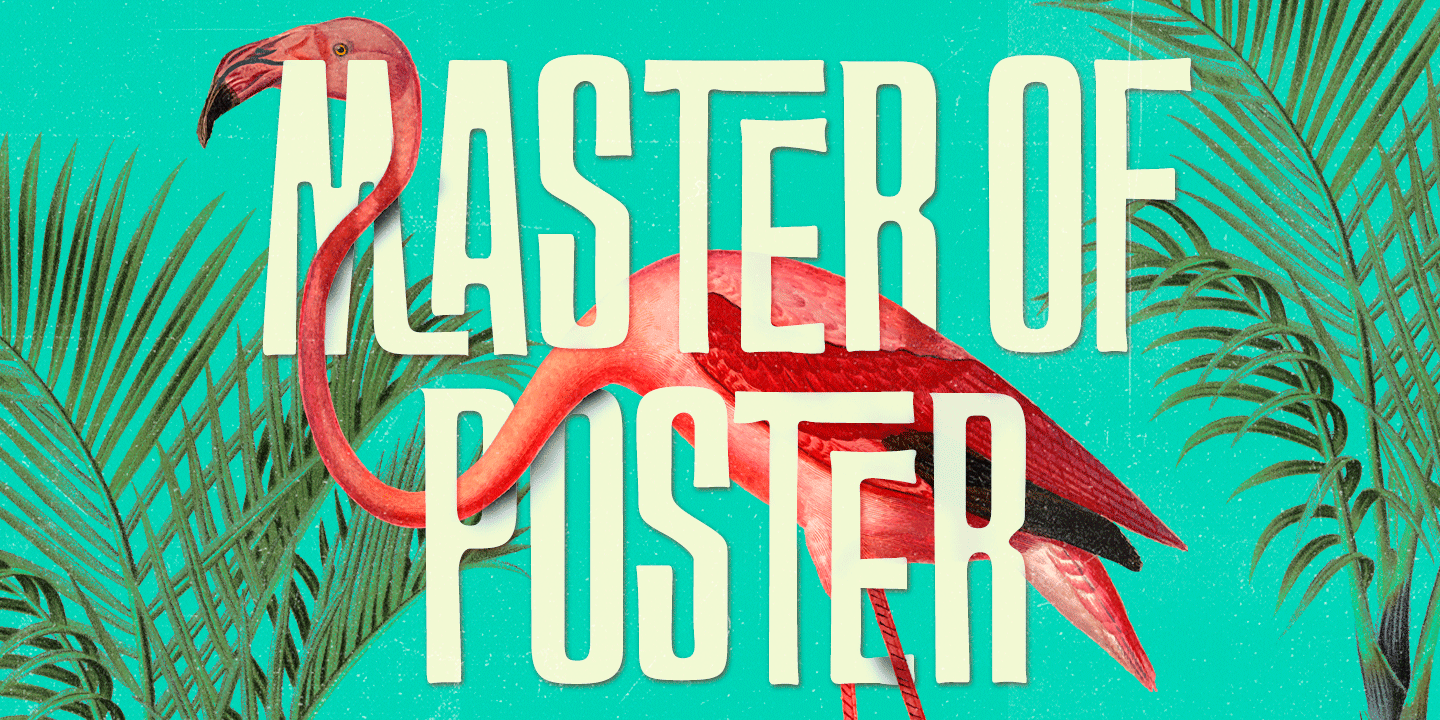
FT Master Of Poster Font excels in movie posters, concert flyers, event banners, advertising campaigns, book covers, magazine headlines, gaming graphics, and bold promotional materials.
FT Master Of Poster Font is exciting because it delivers powerful visual impact with its commanding presence and theatrical character design. This font captures attention instantly with its dramatic letterforms and professional poster-style aesthetics that demand viewer engagement.
FT Master Of Poster Font family includes regular, bold, condensed, and extended variations, plus decorative elements and stylistic alternates, offering complete flexibility for diverse poster design requirements.
Dominate the visual landscape with the commanding presence of FT Master Of Poster Font Free Download. This powerhouse typeface is specifically engineered for maximum visual impact, featuring bold, attention-grabbing letterforms that excel in large-scale applications. Perfect for designers who need to make a statement, this font delivers unparalleled strength and personality to any project.
The robust character design showcases exceptional legibility even at distance, making it the ultimate choice for billboards, signage, and promotional materials. Each letter is meticulously crafted to maintain clarity while delivering dramatic flair that captures audience attention immediately.
Whether you're designing blockbuster movie promotions, concert advertisements, or commercial campaigns, FT Master Of Poster Font provides the authoritative presence your projects demand. This versatile typeface transforms ordinary text into compelling visual statements that resonate with viewers and drive engagement across all media platforms.